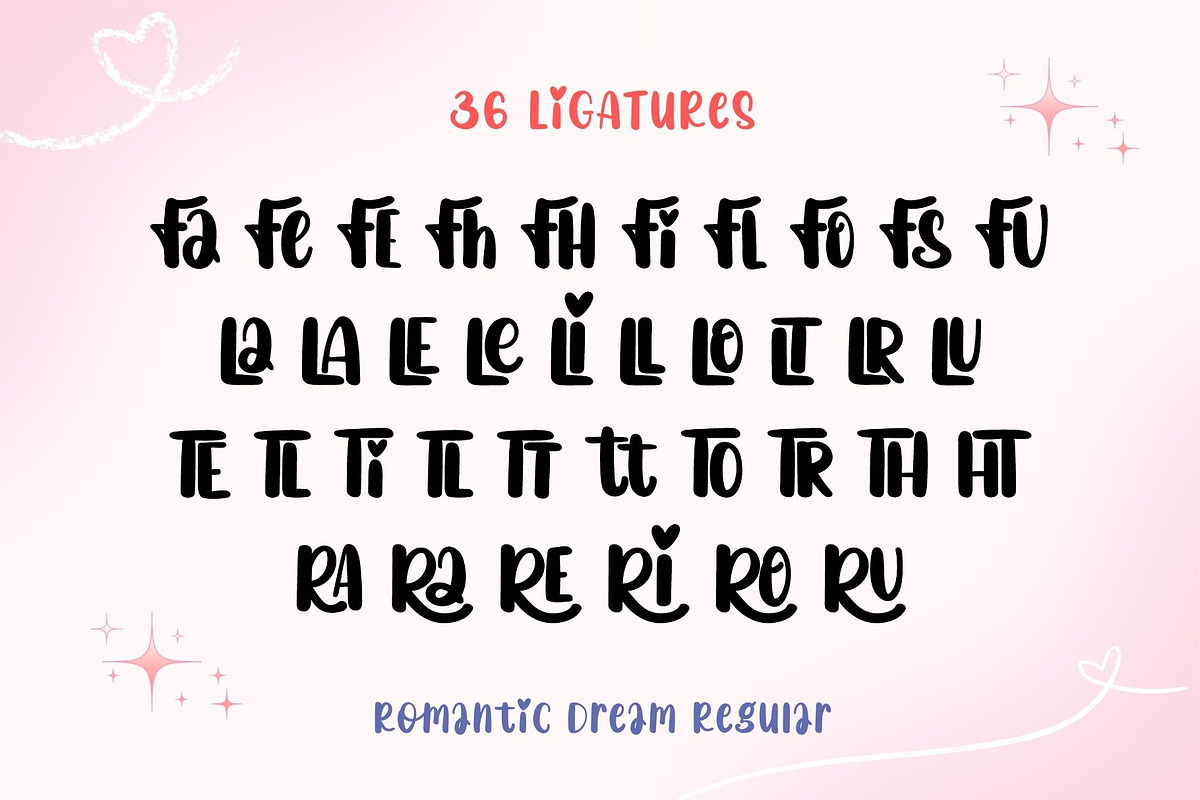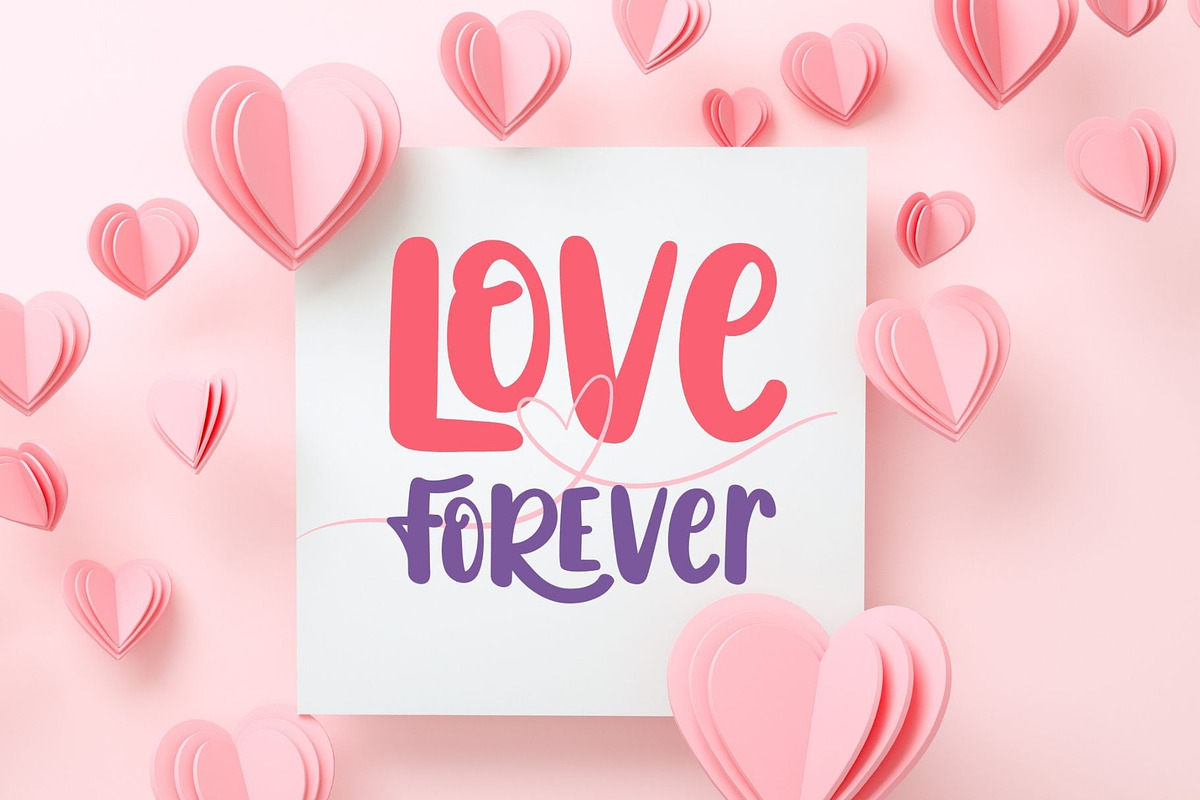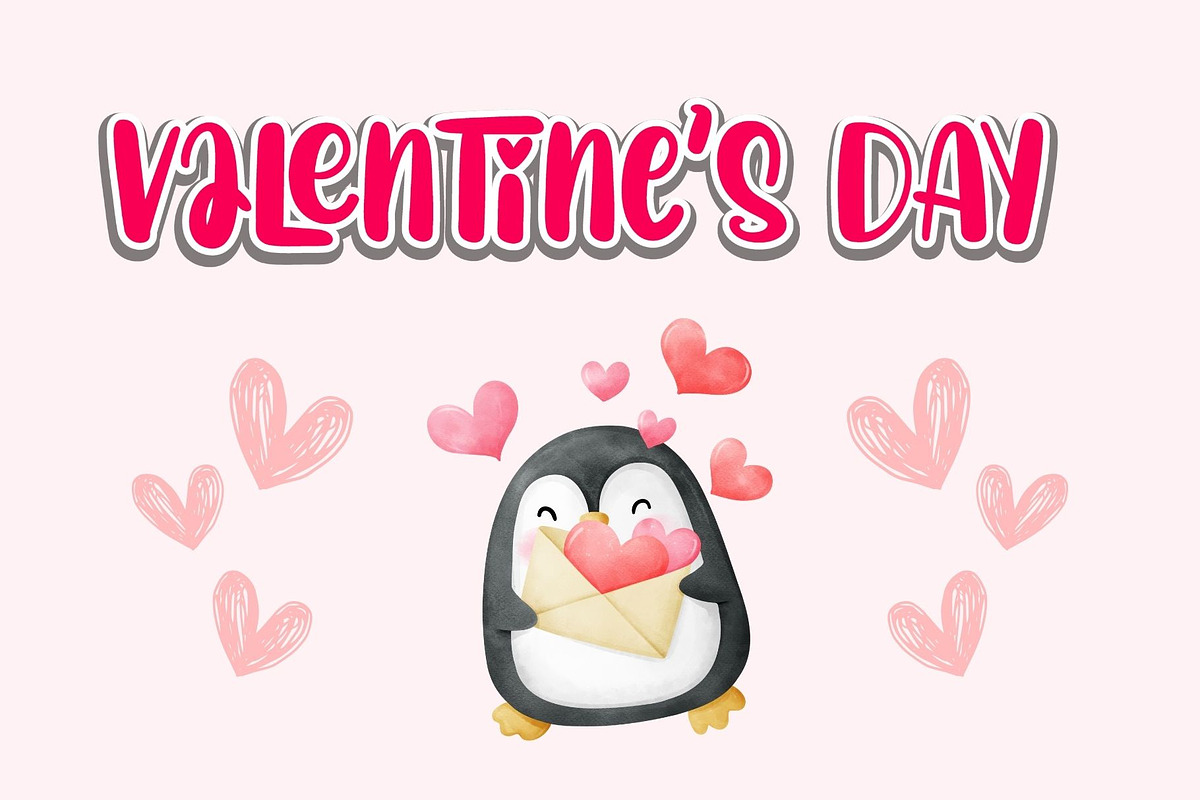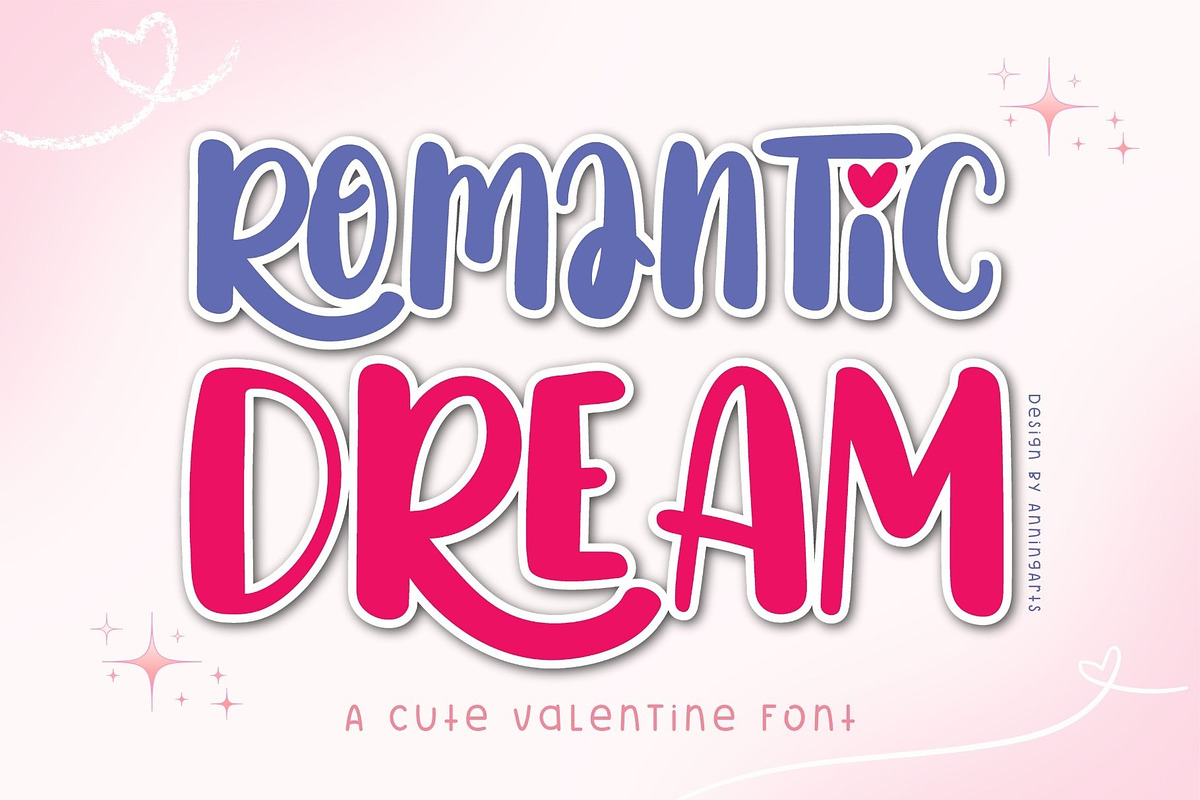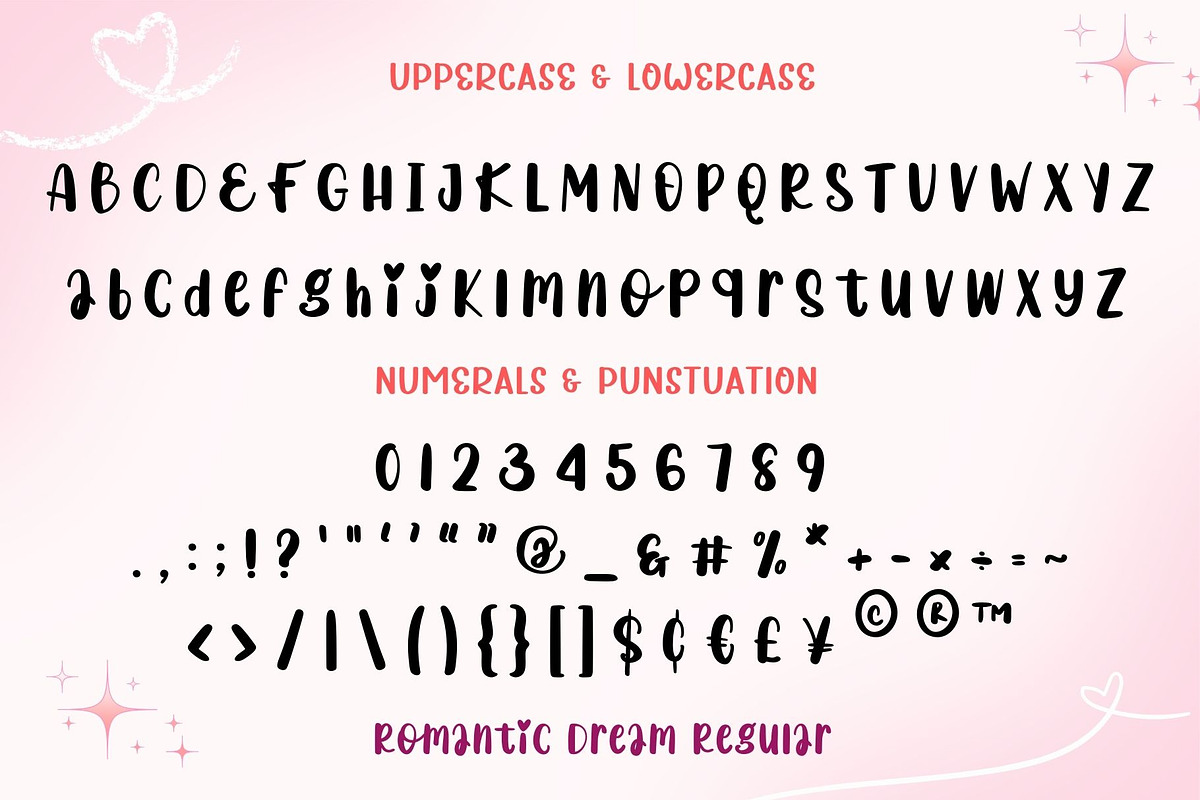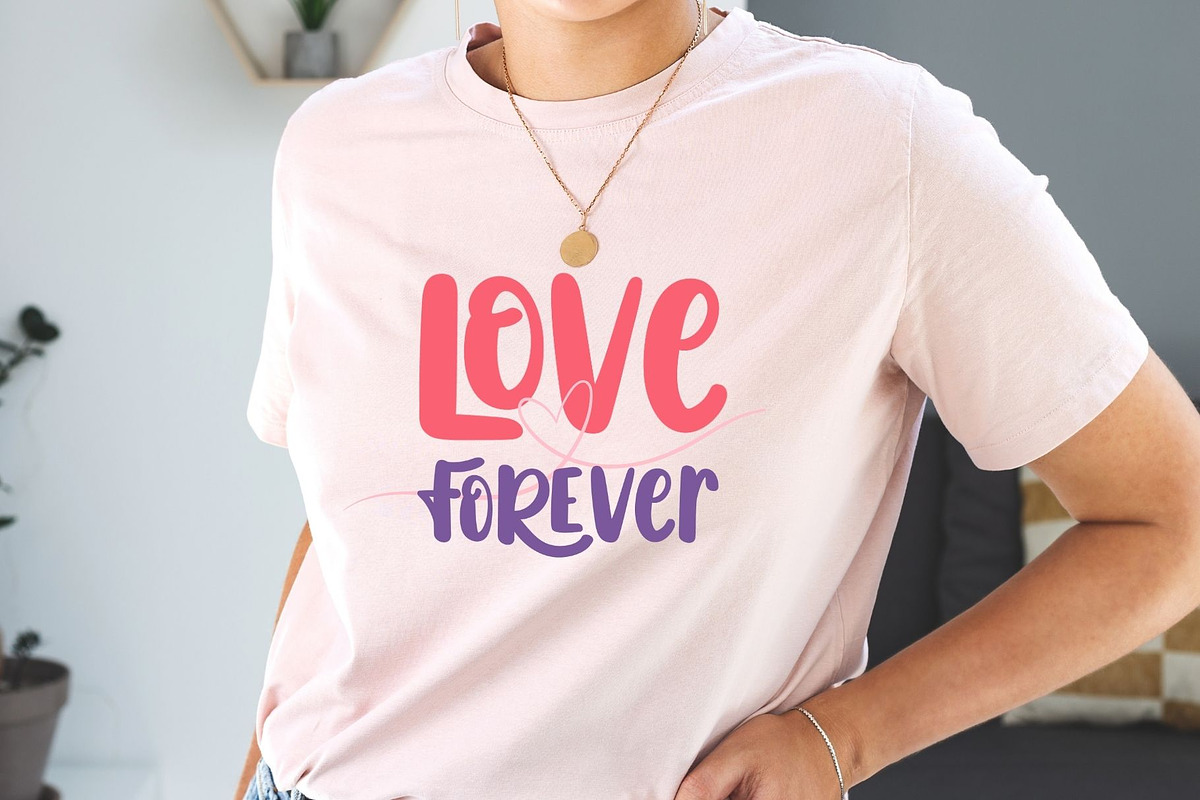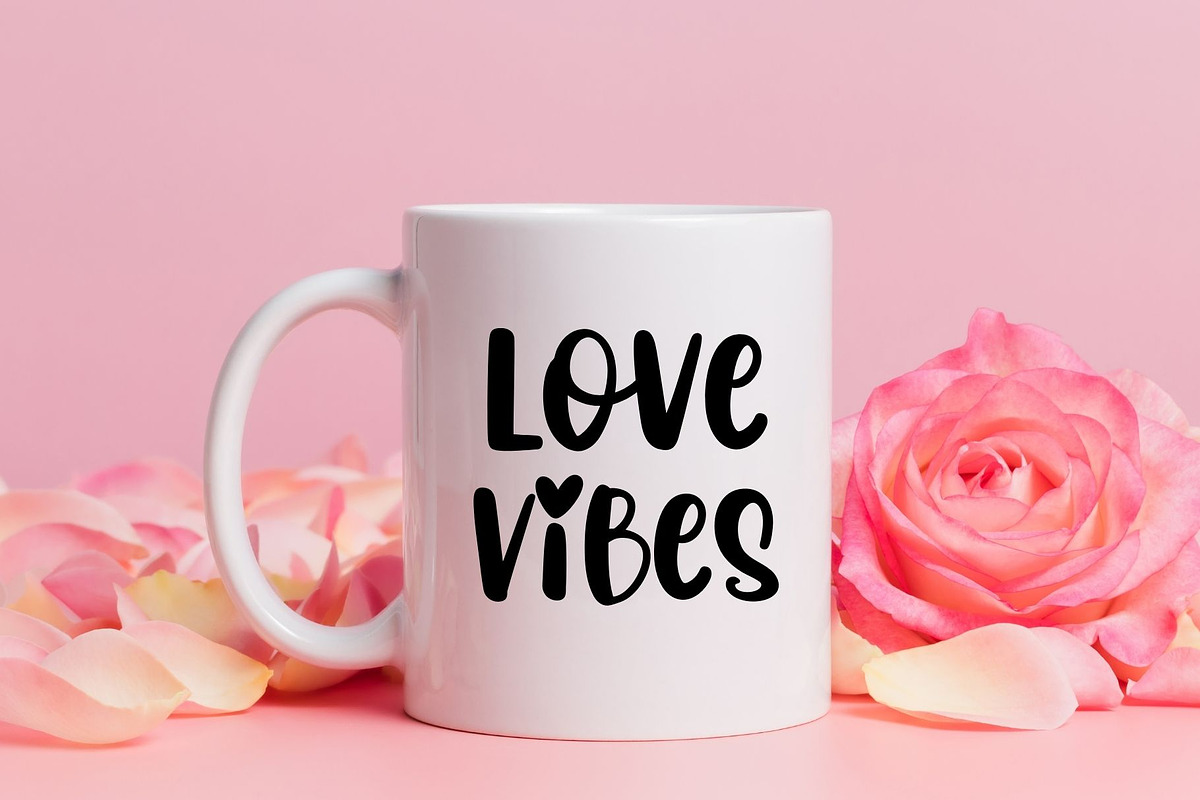
Romantic Dream
Romantic Dream is a charming and playful font designed for celebrating love and special moments. Featuring a hand-drawn style with smooth curves and whimsical details, it’s perfect for Valentine’s cards, wedding invitations, romantic quotes, and cute branding projects. Its vibrant and cheerful vibe adds a touch of warmth and creativity to your designs, making it ideal for spreading love and joy.